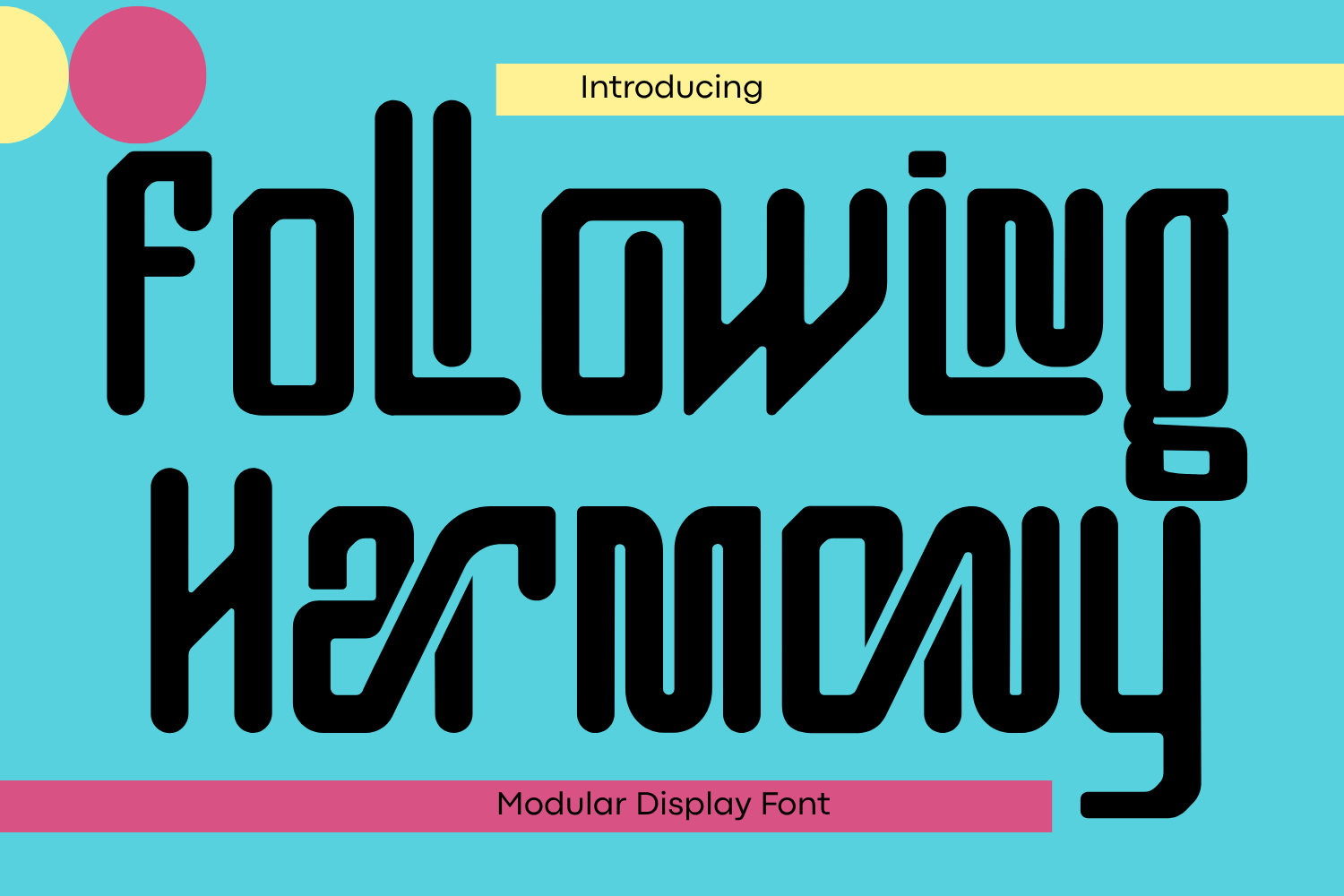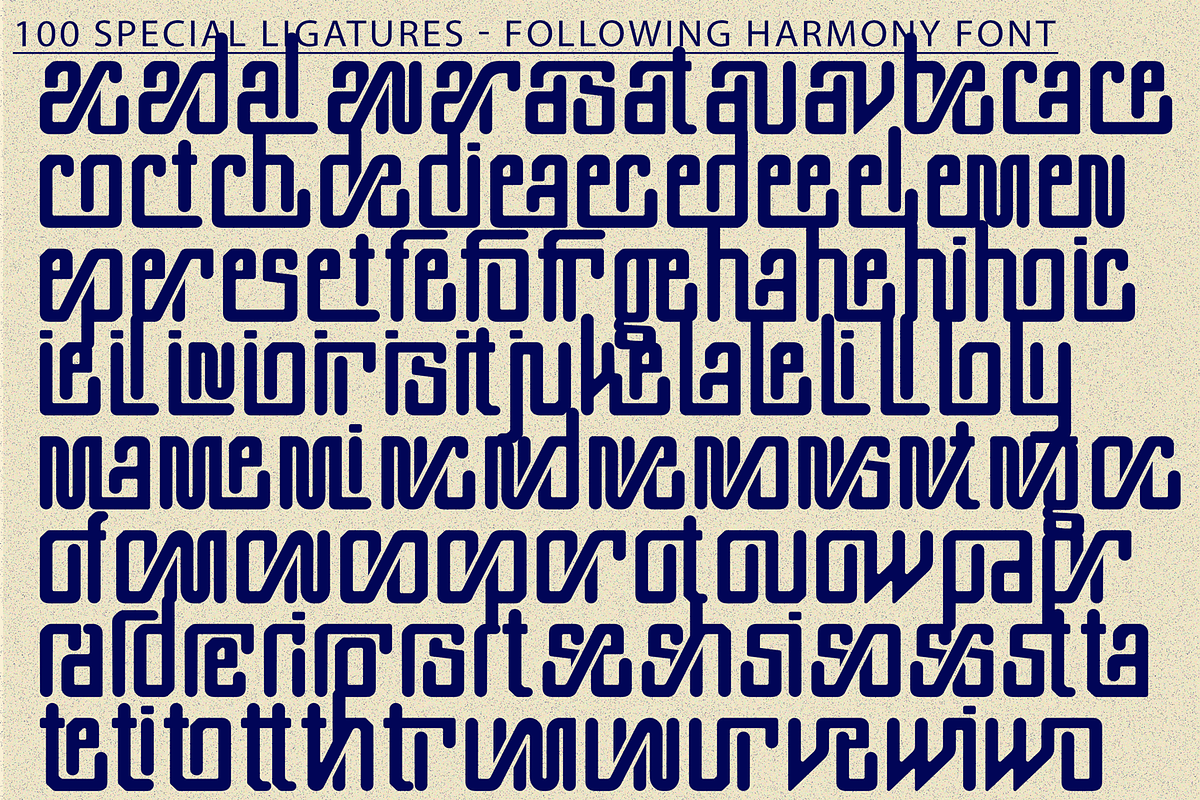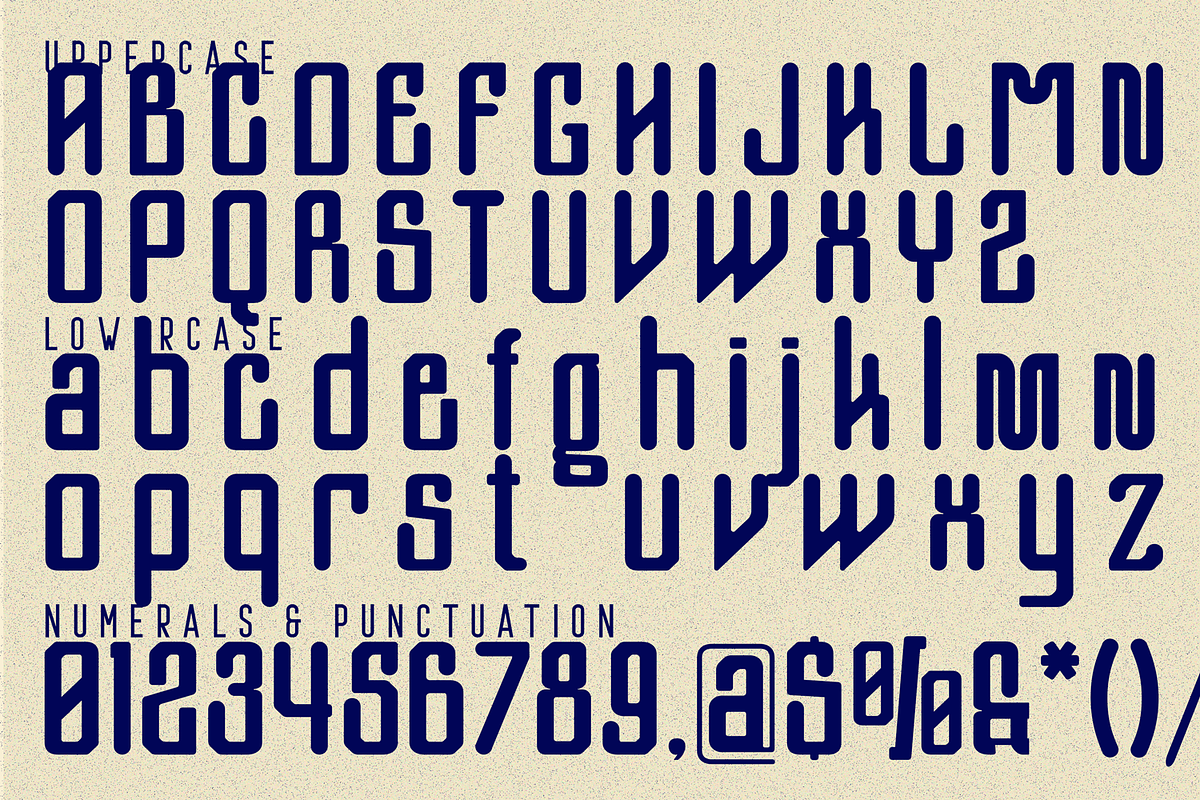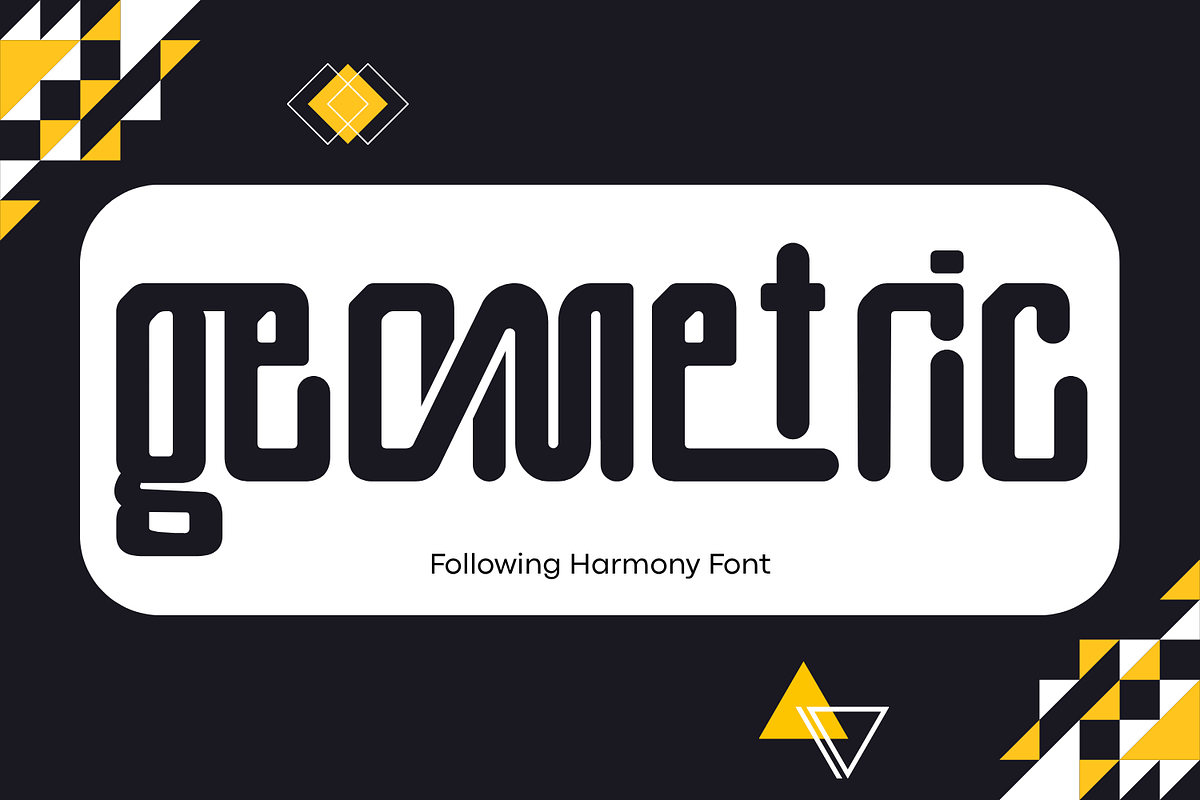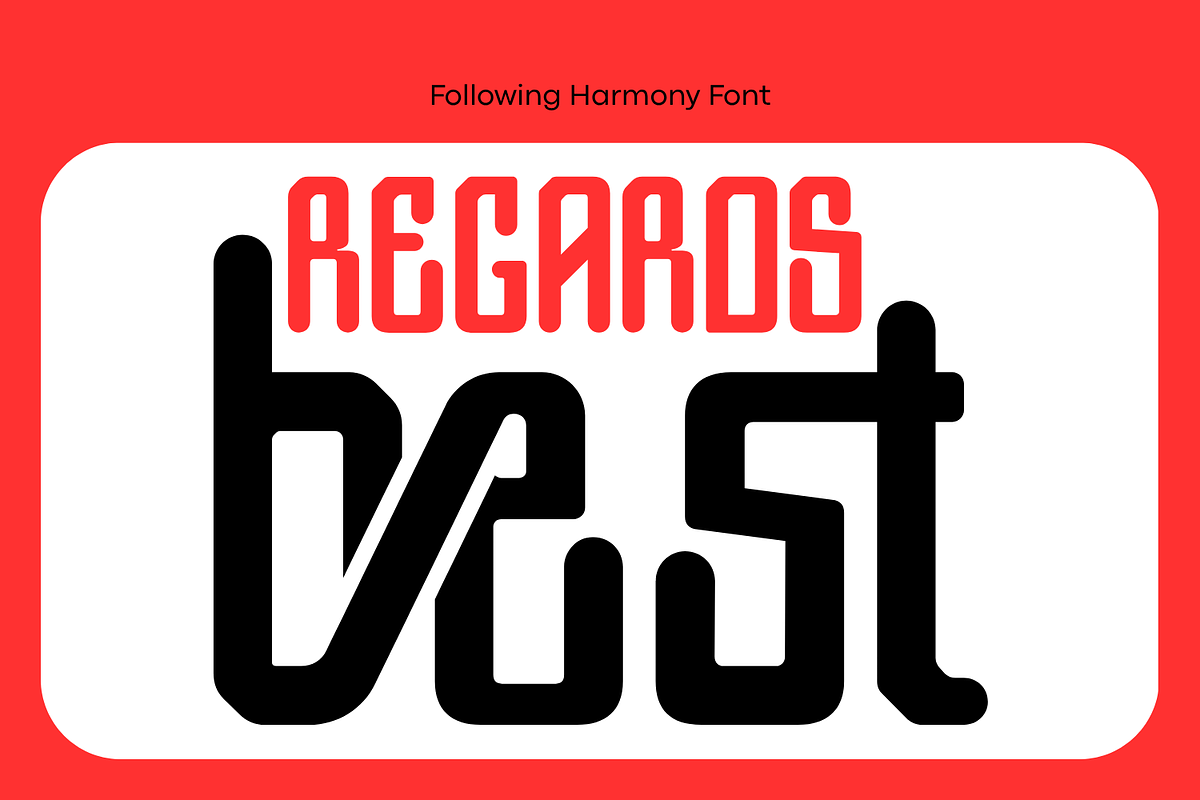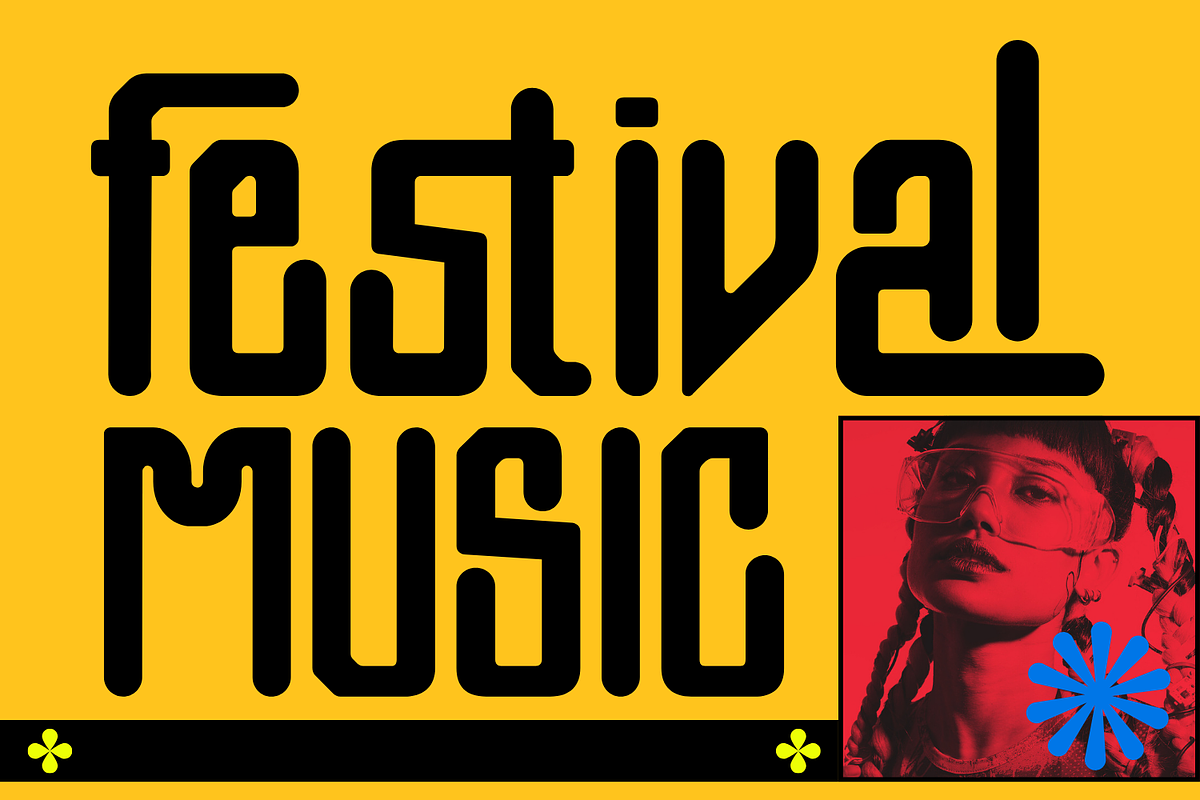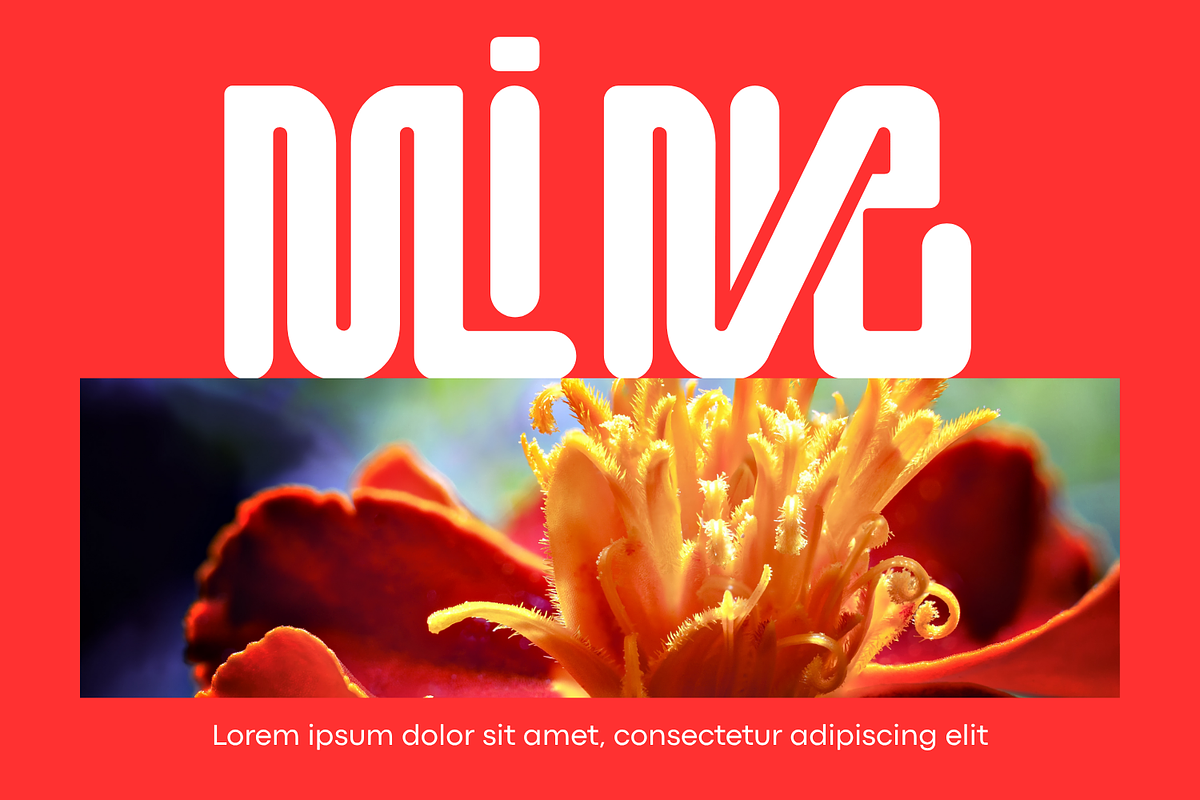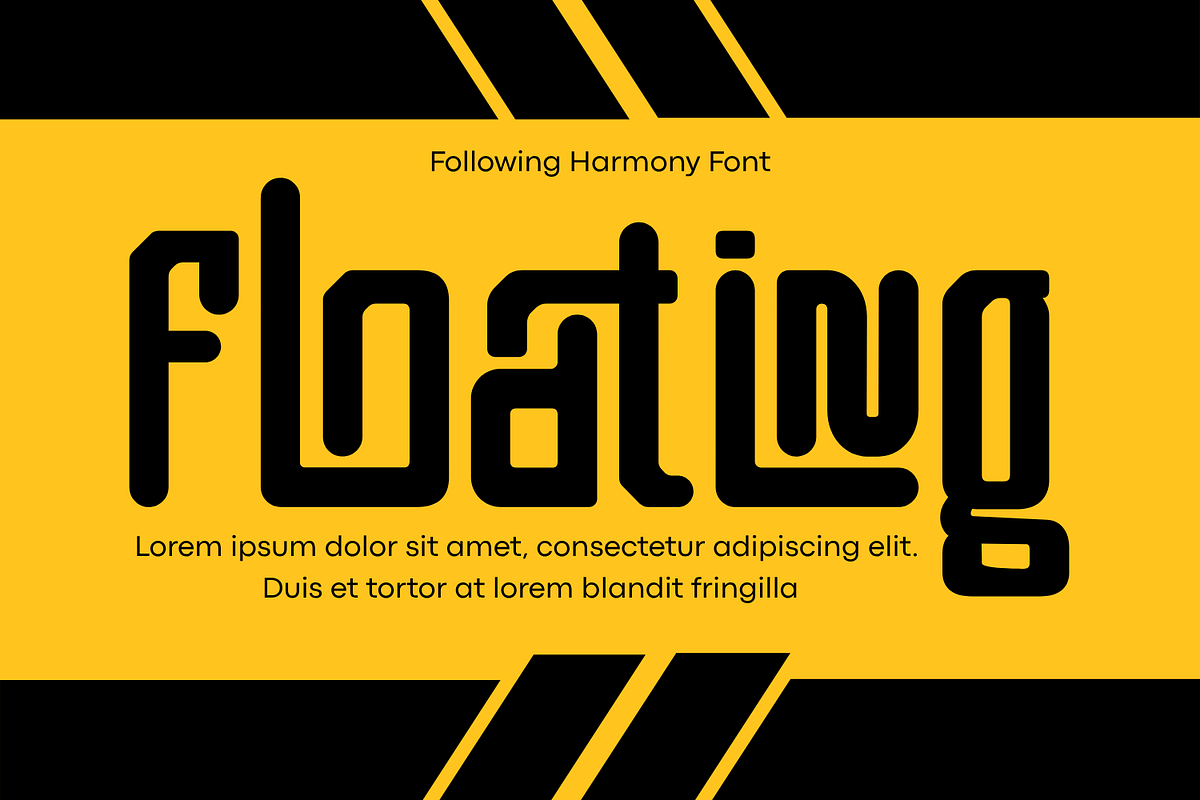
Following Harmony Font
Following Harmony Font, a futuristic Modular Sans-Serif Display Font crafted with bold geometric precision and smooth linear forms. Each letter is built from seamless rounded shapes, giving your design a sense of rhythm, order, and innovation. Perfect for futuristic branding, digital interfaces, posters, or creative typographic compositions.
- Uppercase & Lowercase Letters
- Approximately 100 Special Ligatures for seamless combinations
- Accented Characters for multilingual support
About 100 ligatures combined with Stylistic Alternates Font:
ac ad al an ar as at au av be ca ce ch co ct de di ea ec ed ee el em en ep er es et fe fo fr ge ha he hi ho ie ic il in io ir is it ju ke la le li ll lo ly ma me mi nc nd ne ng no nt ns oc of om on oo op or ot ou ow pa pr ra rd re ri ro rs rt se sh si so ss st ta te th ti to tr tt um un ur ve wi wo